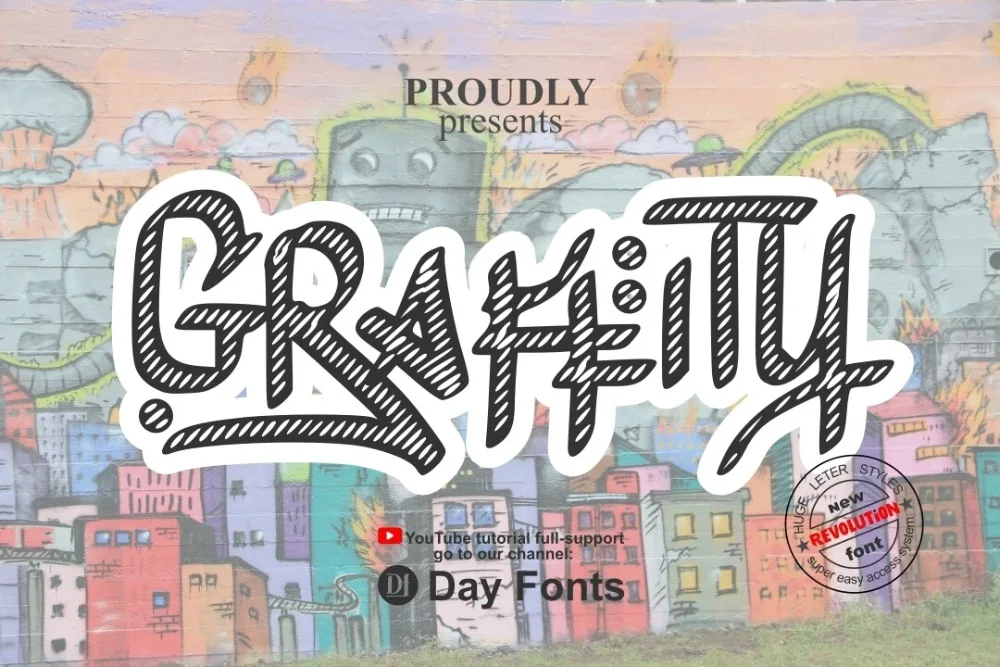
Rough Wall Graffiti Font
Artwork by Graffity 3, the original creator of this set.
Every collection needs a rough graffiti font that can carry a whole layout on its own. This is that font. Uneven edges that pick up the roughness of the surface underneath. Texture built in, no overlay files needed.
The outlines wobble slightly and small speckles break away from the main strokes, producing a printed-on-brick effect straight from the keyboard. Larger sizes reveal more grain.
Best used on flyers, sticker designs, stencil-style prints, and photo overlays.
Pair it with something quiet. A plain sans for body copy lets the lettering do its job instead of fighting the paragraph underneath it for attention.